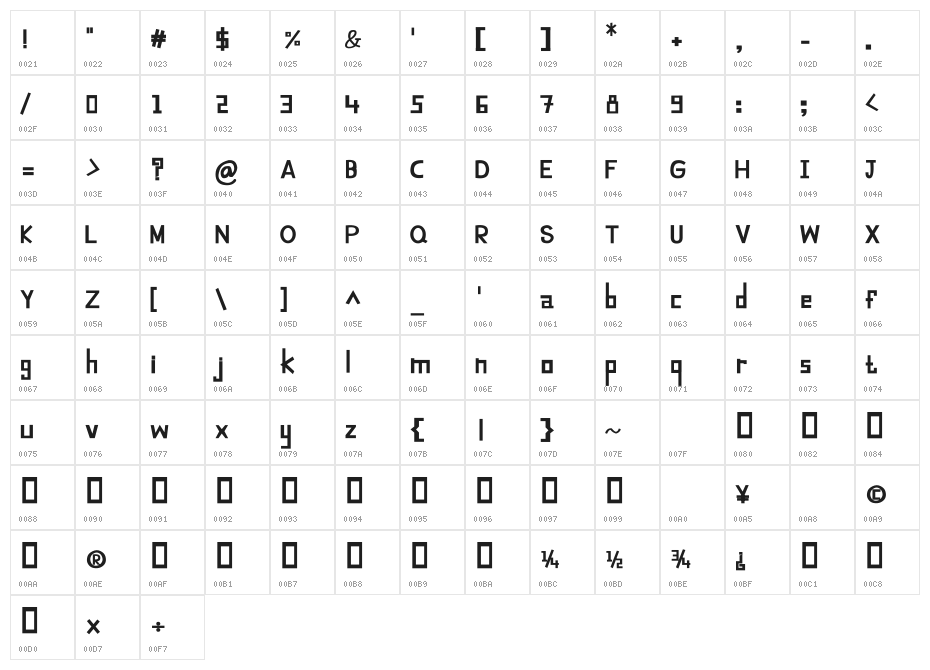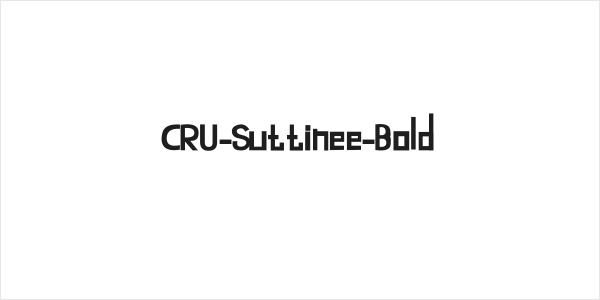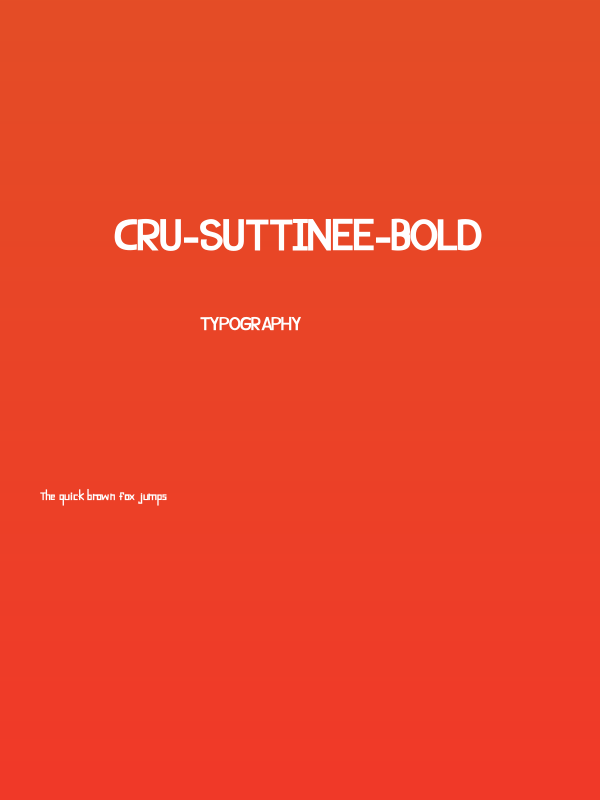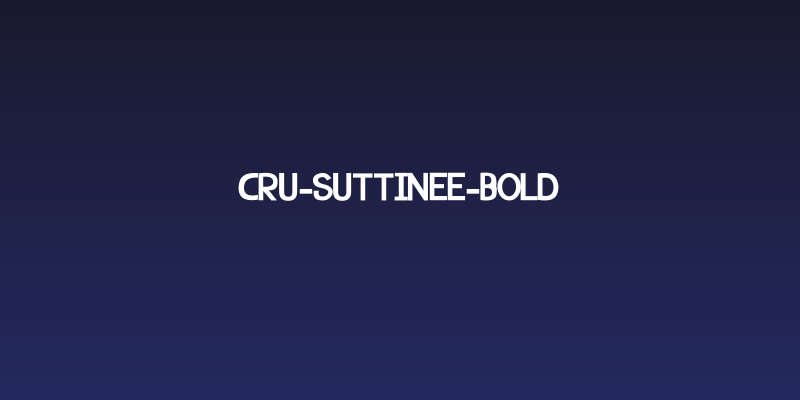
CRU-Suttinee-Bold Font
CRU-Suttinee-Bold Description
This font features a bold and geometric design with a strong presence. The characters are constructed with sharp angles and clean lines, giving it a modern and structured appearance. The uppercase letters are uniform in height, while the lowercase letters maintain a consistent style, enhancing readability. The numbers are equally bold, matching the overall aesthetic of the font. Special characters are distinct and well-defined, ensuring clarity in various contexts. The font's design is both functional and visually striking, making it suitable for a variety of applications.
Proposed ProjectsIdeal for branding, headlines, posters, and digital media where a modern and bold statement is needed.